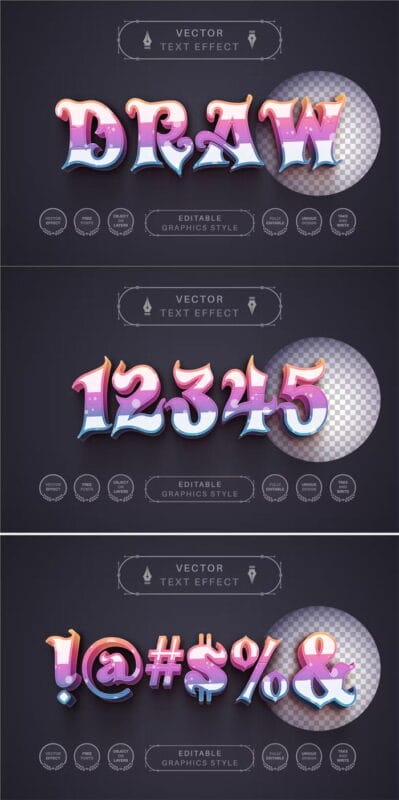
Magic Unicorn Editable Text Effect Font Style
Here in this post, you can Free Download Magic Unicorn Editable Text Effect Font Style GQ5W8WN compress files through the below link. new text effect “Magic Unicorn”. Just write your word and the effect will apply! Be as creative as you like to express yourself with this unique “magic unicorn”. Effect is perfect for any project that needs a unique handy touch, whatever else your imagination inspires! You Can Also Free Download New Year Bundle 3D Editable Text Effect.
Magic Unicorn Editable Text Effect Font Style